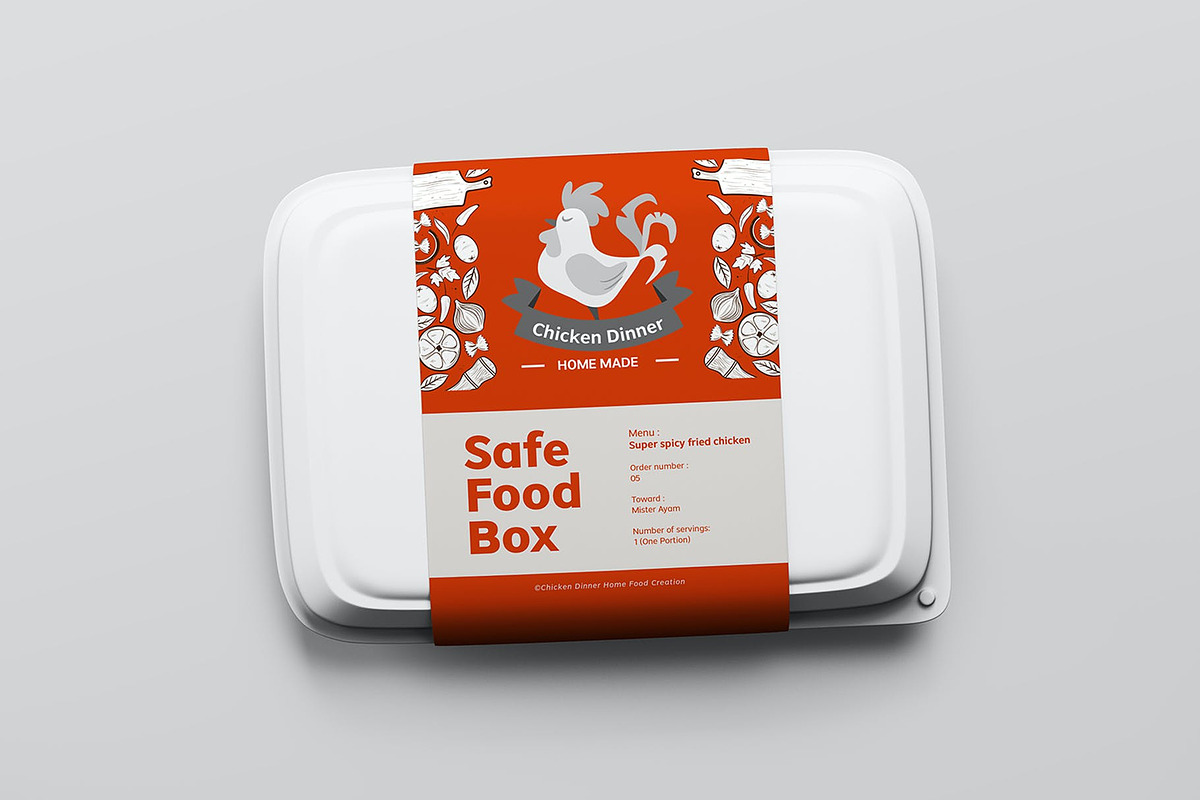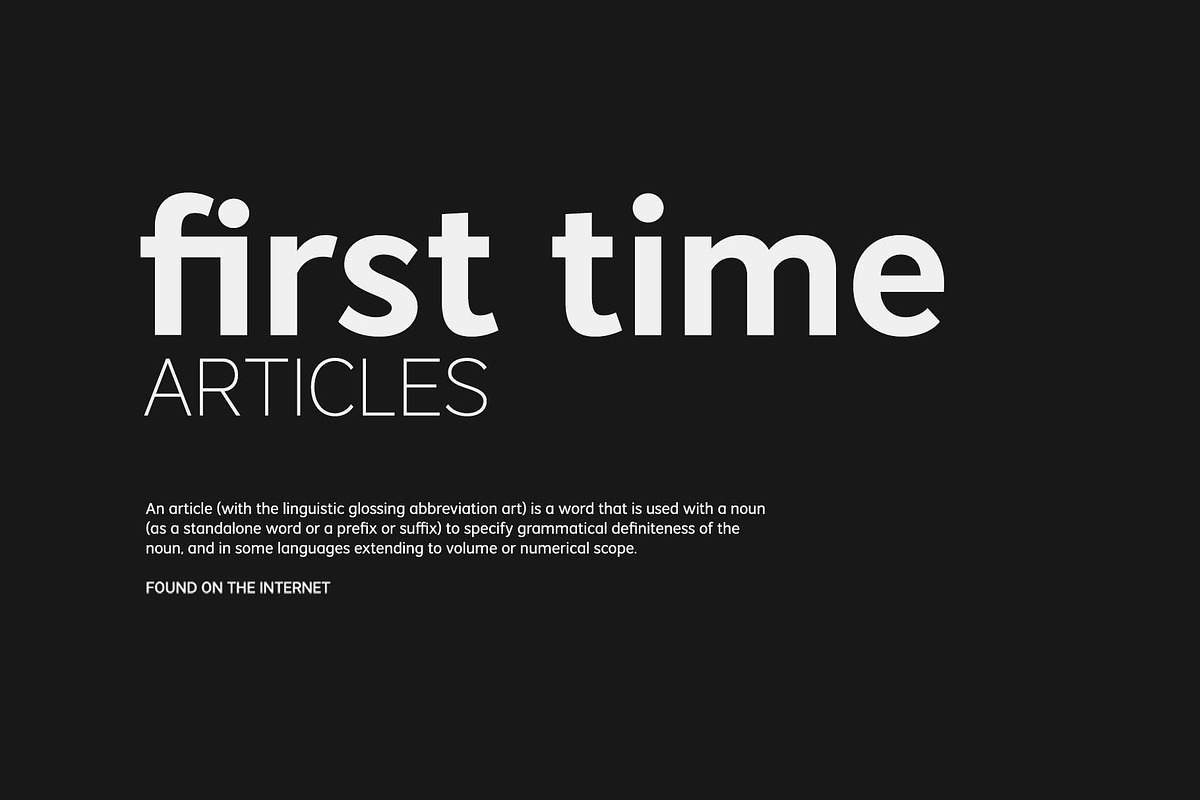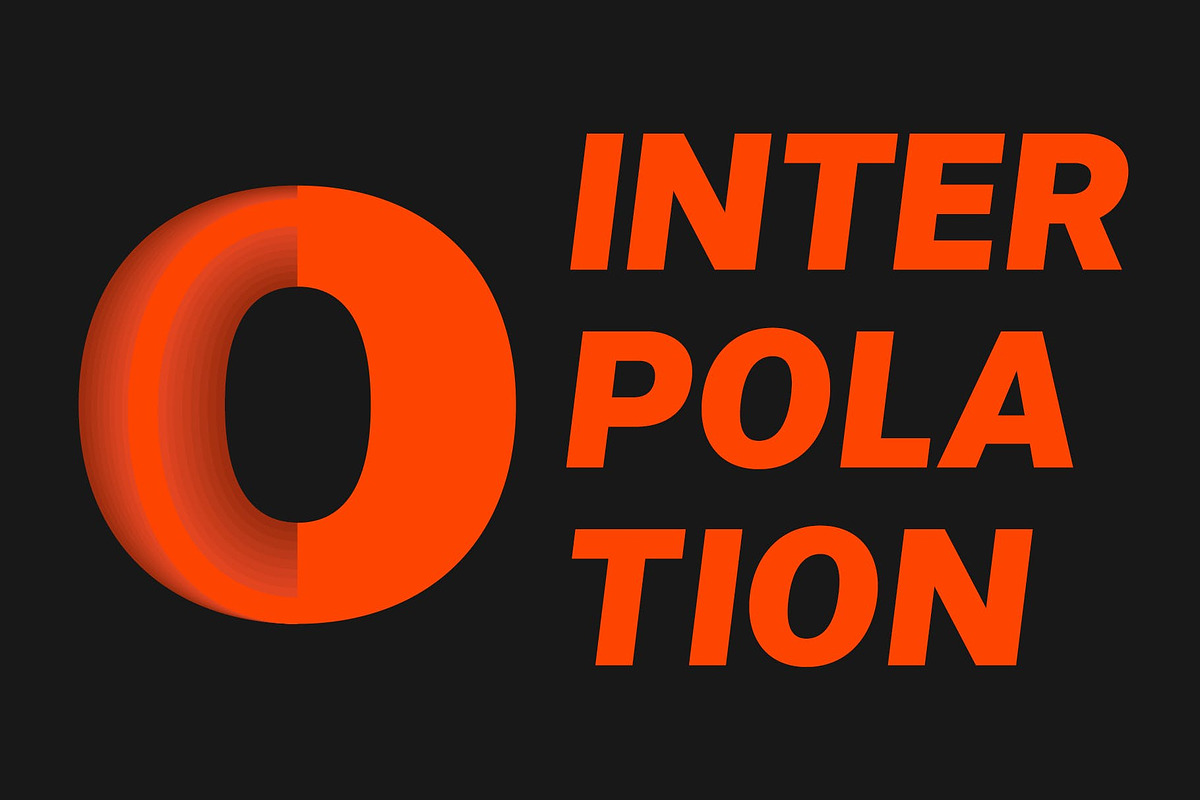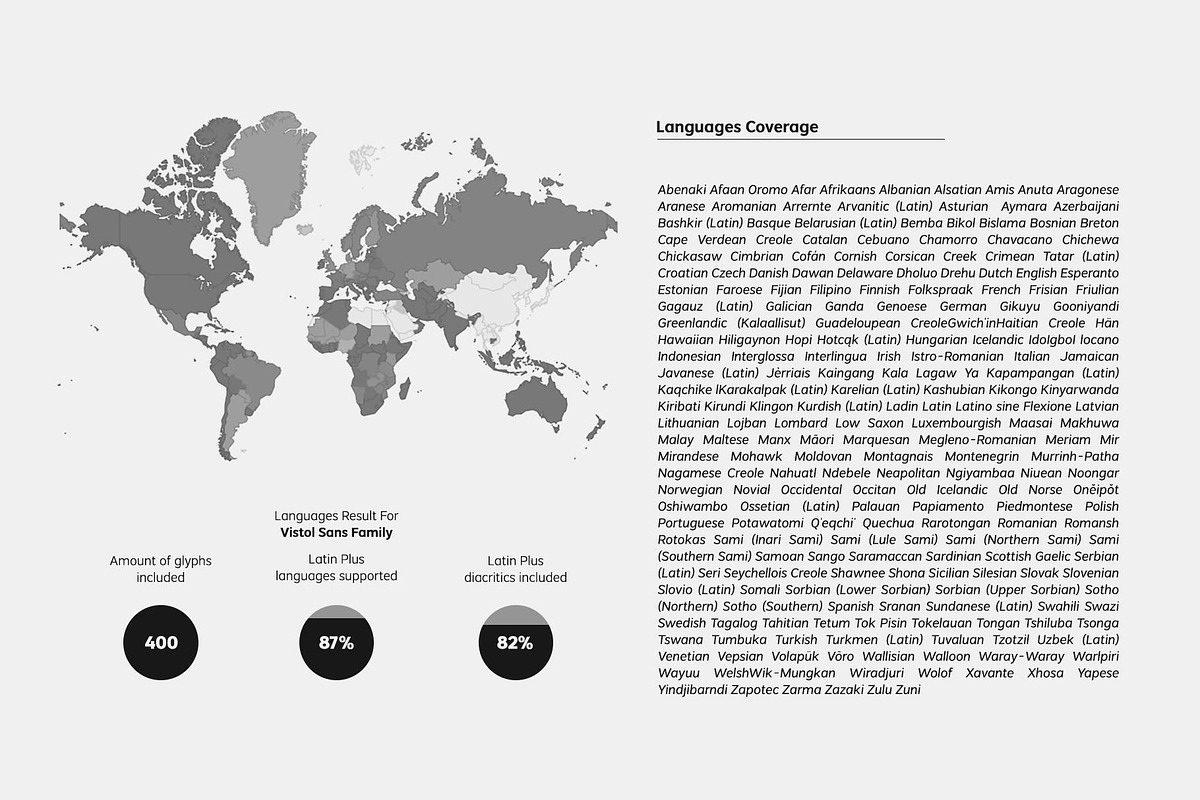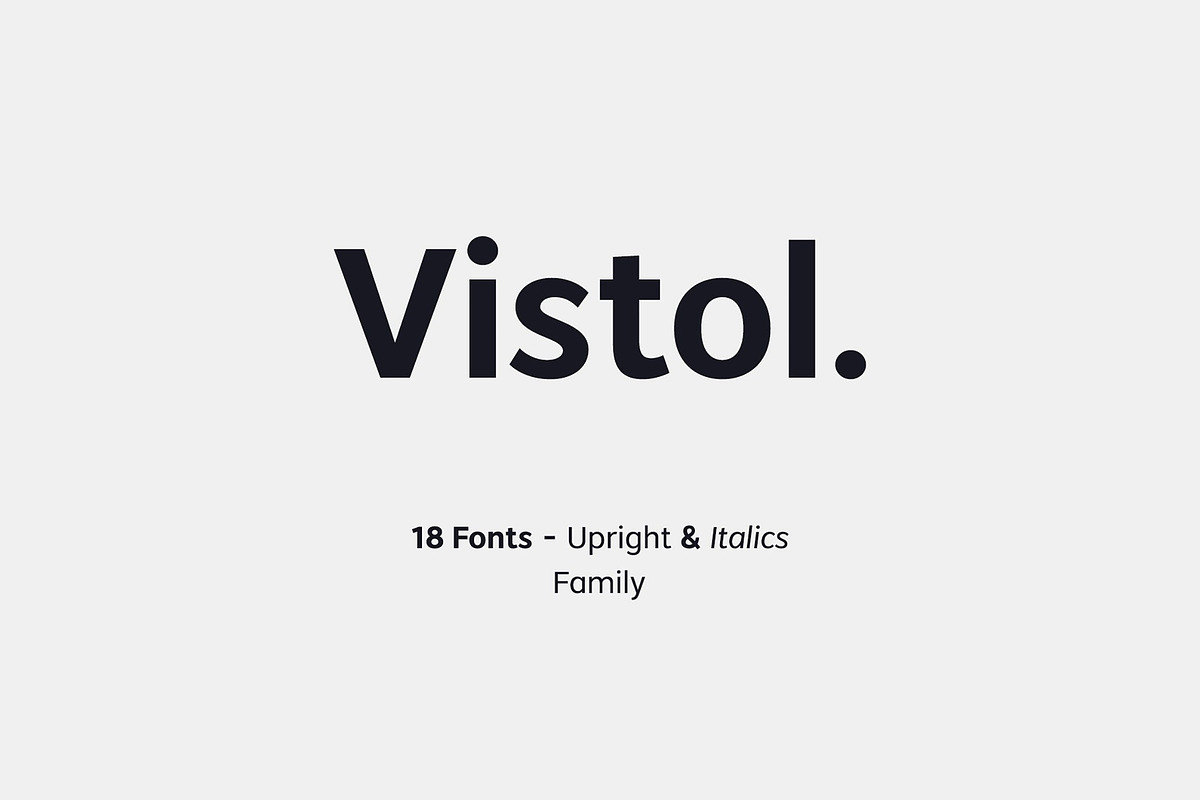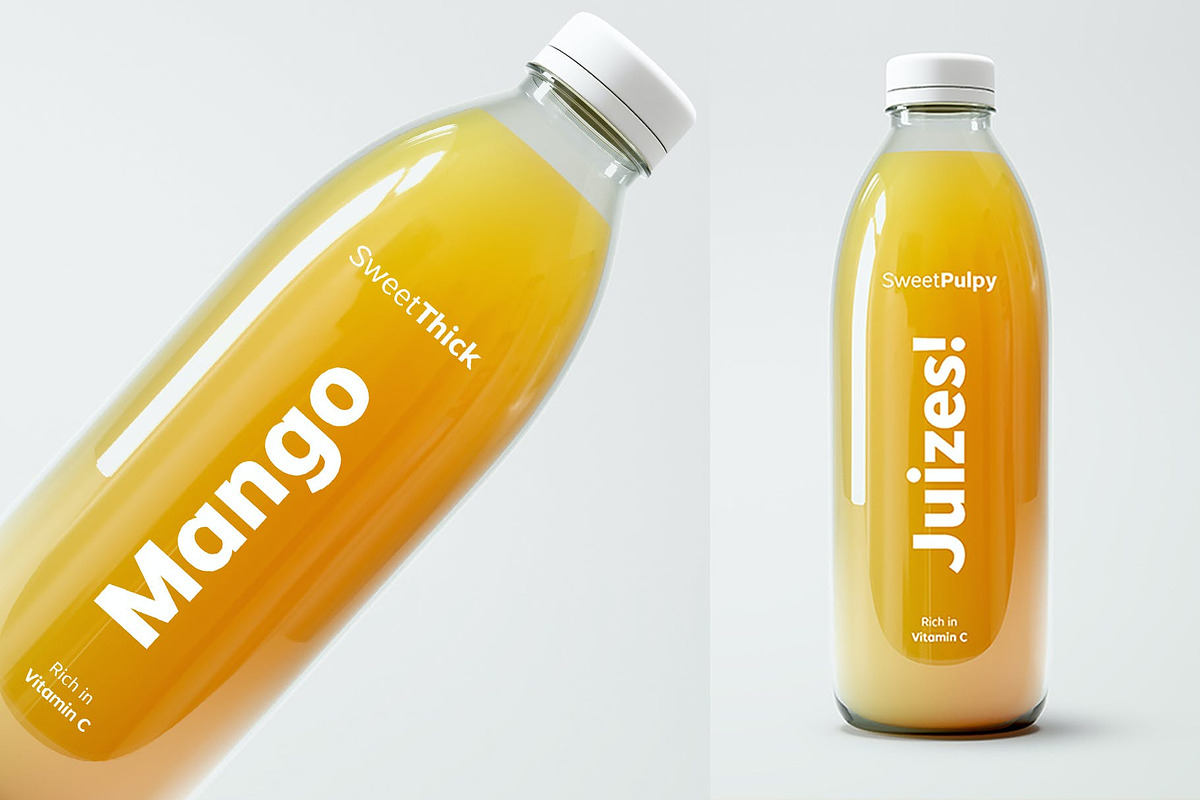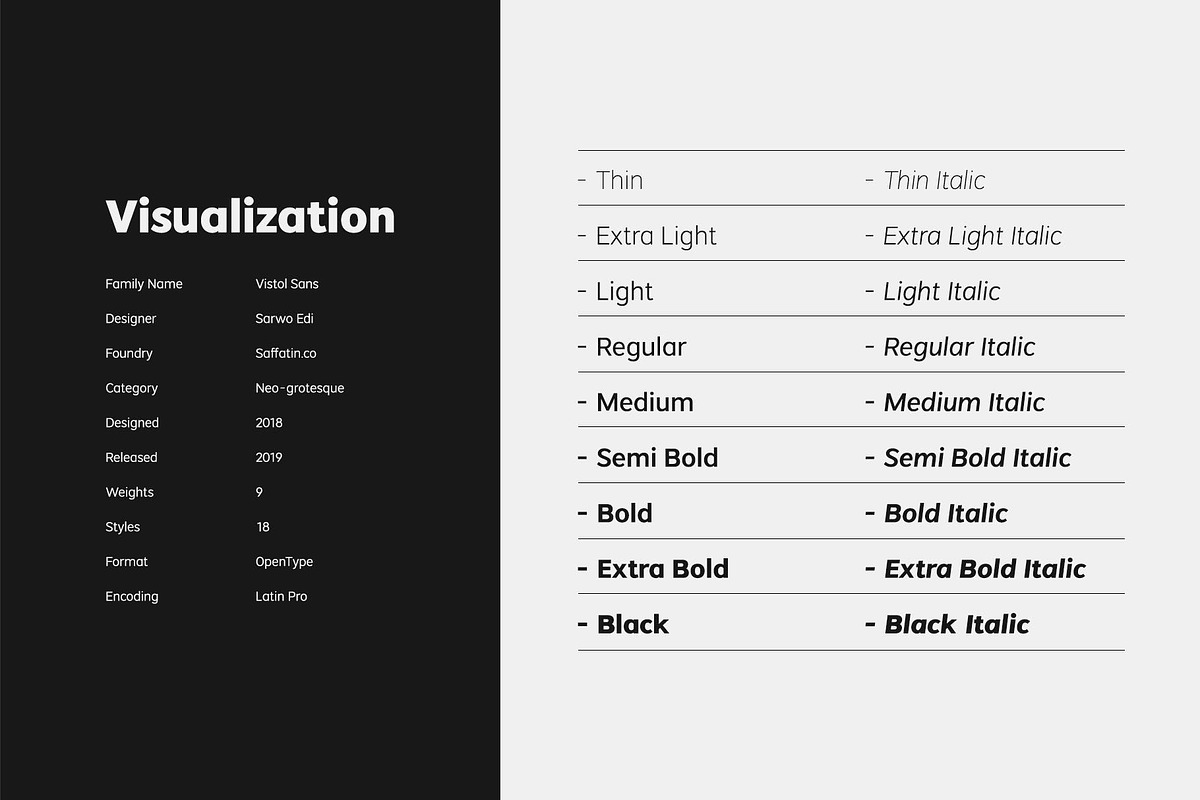
Vistol Sans Family
Vistol Sans Latin Pro is a Neo-grotesque sans-serif typeface family!
It comes in 18 weights, 9 uprights and its following with italics. Latin Pro Accent for Support European languages, Extended Latin A, Extende Latin B, Punctuation, Number, Currency Symbols, etc. Low-contrast stroke makes it suitable for printing, packaging, articles, titles, editorials, publishing, logos, branding, small or large text usage.
This font has been tested in print. The printout can still be read well on the 6pt font size for the Thin-ExtraLight category. 4pt for the Light-Balck category.